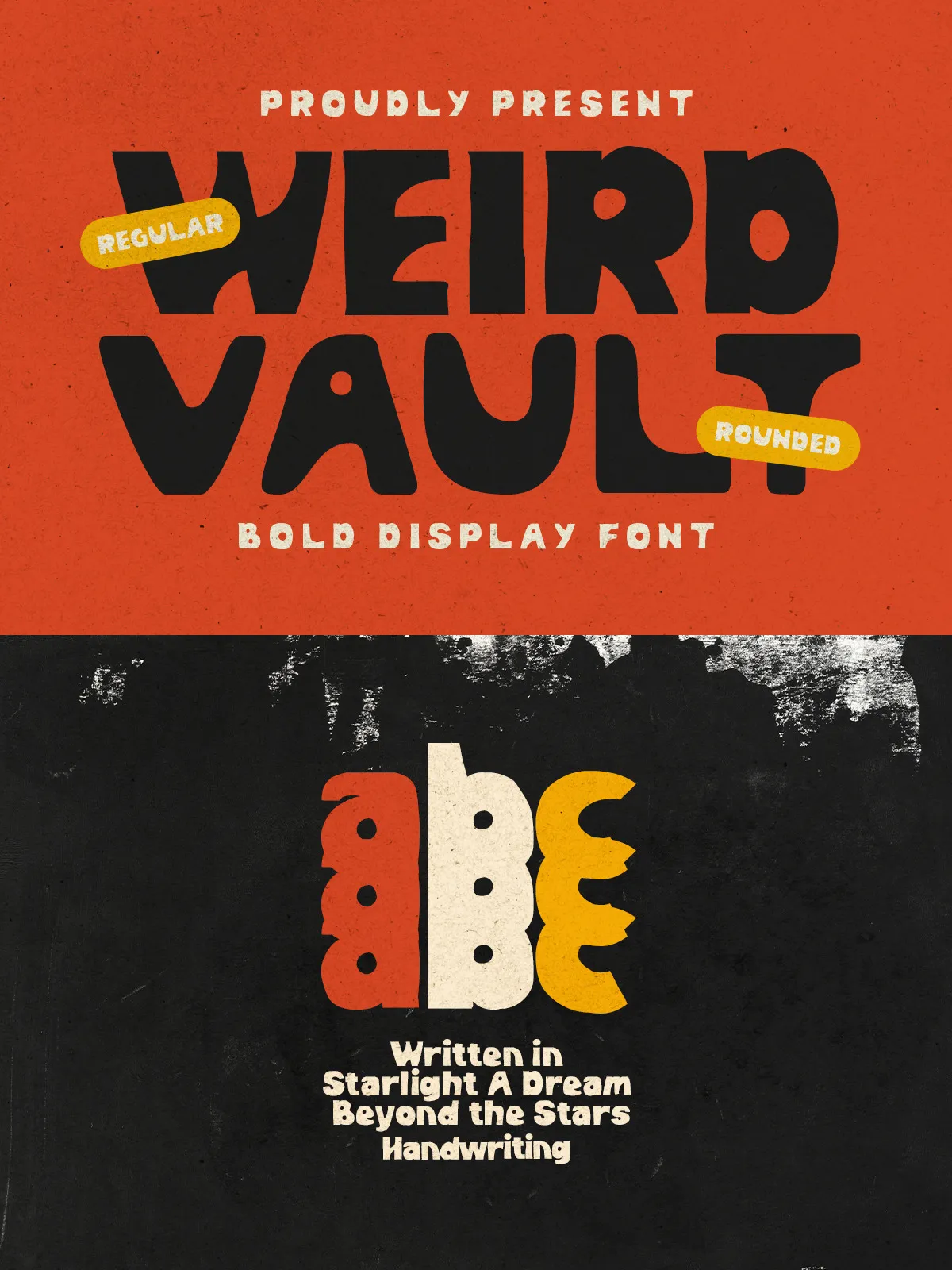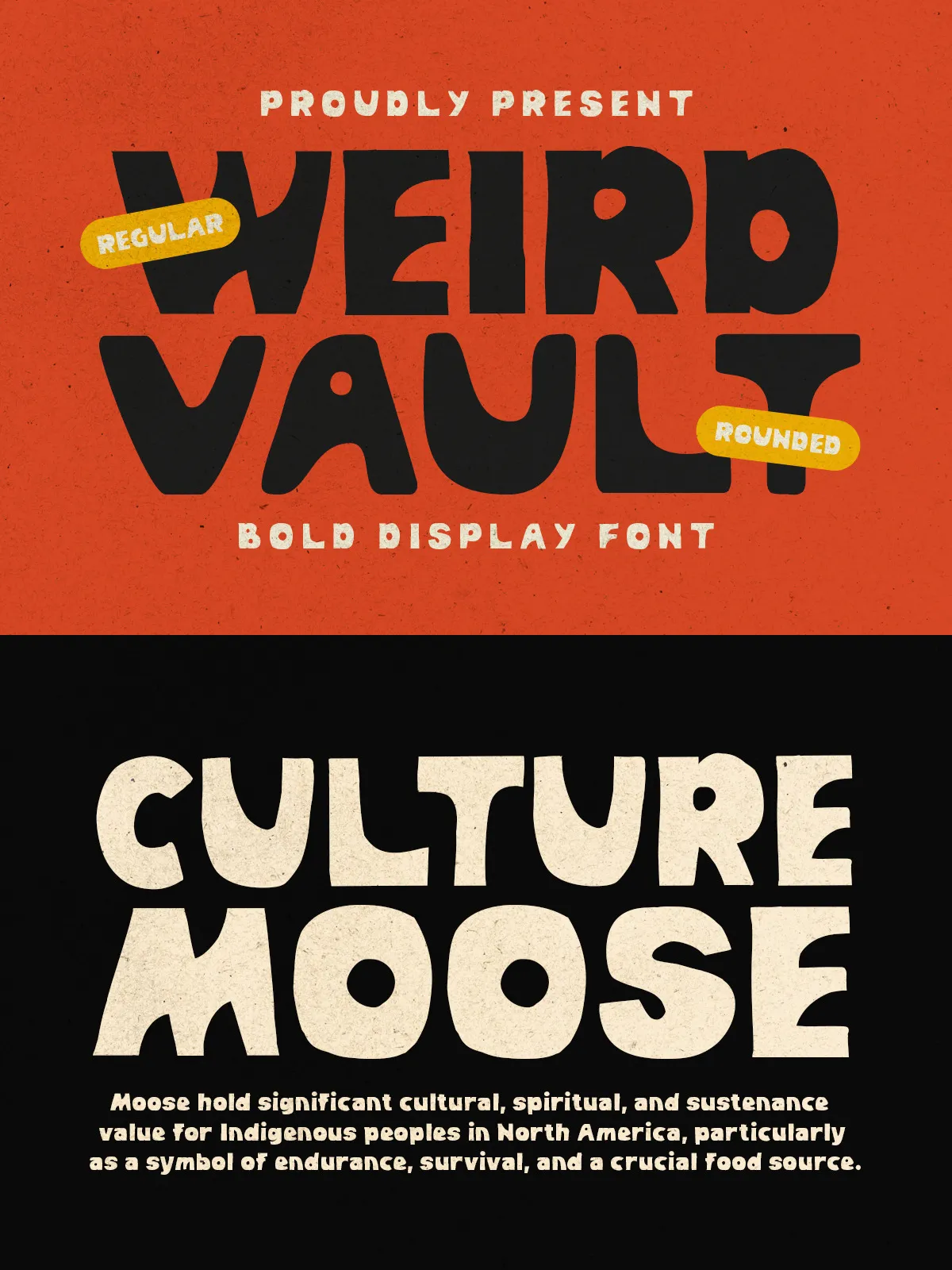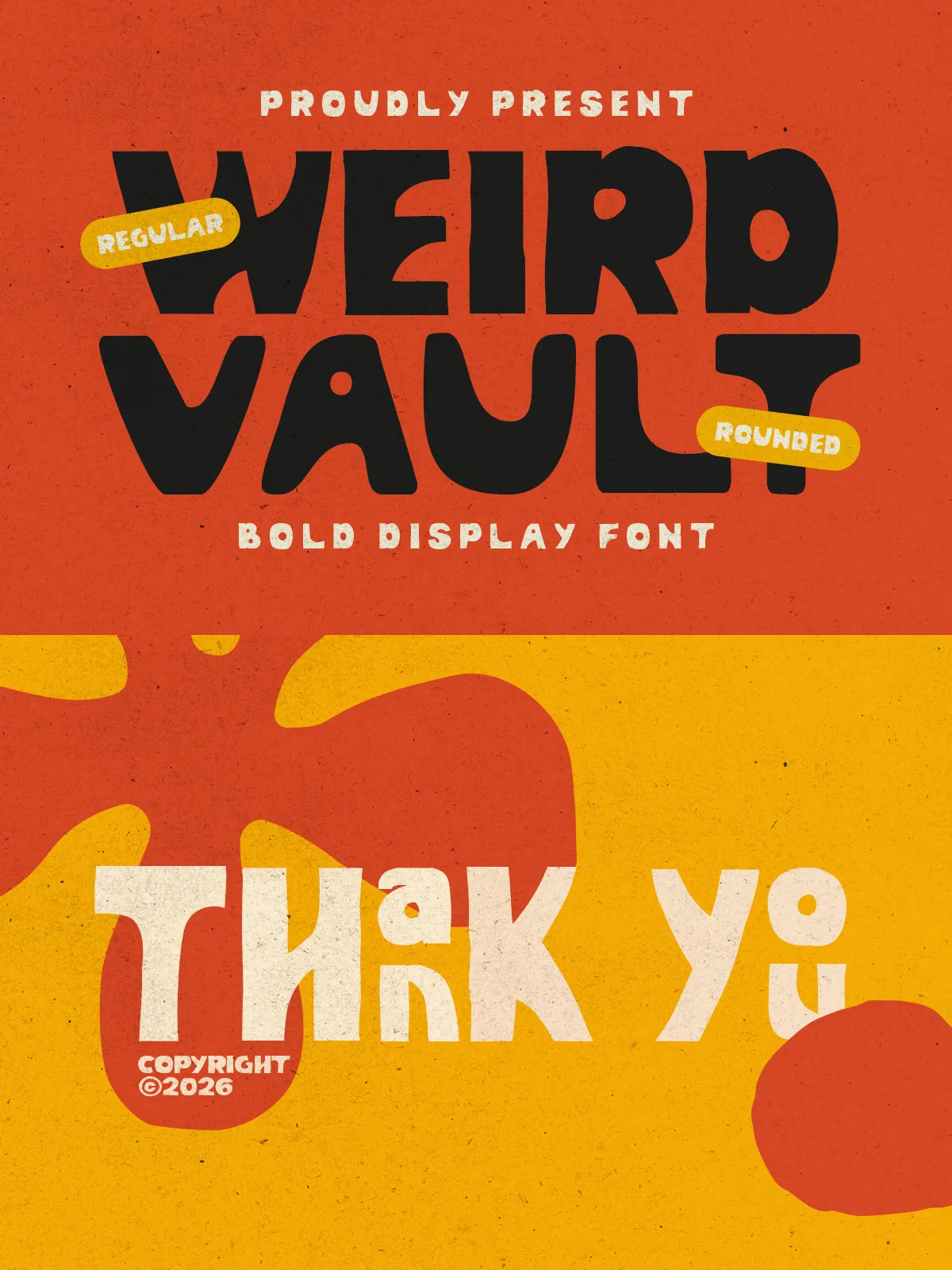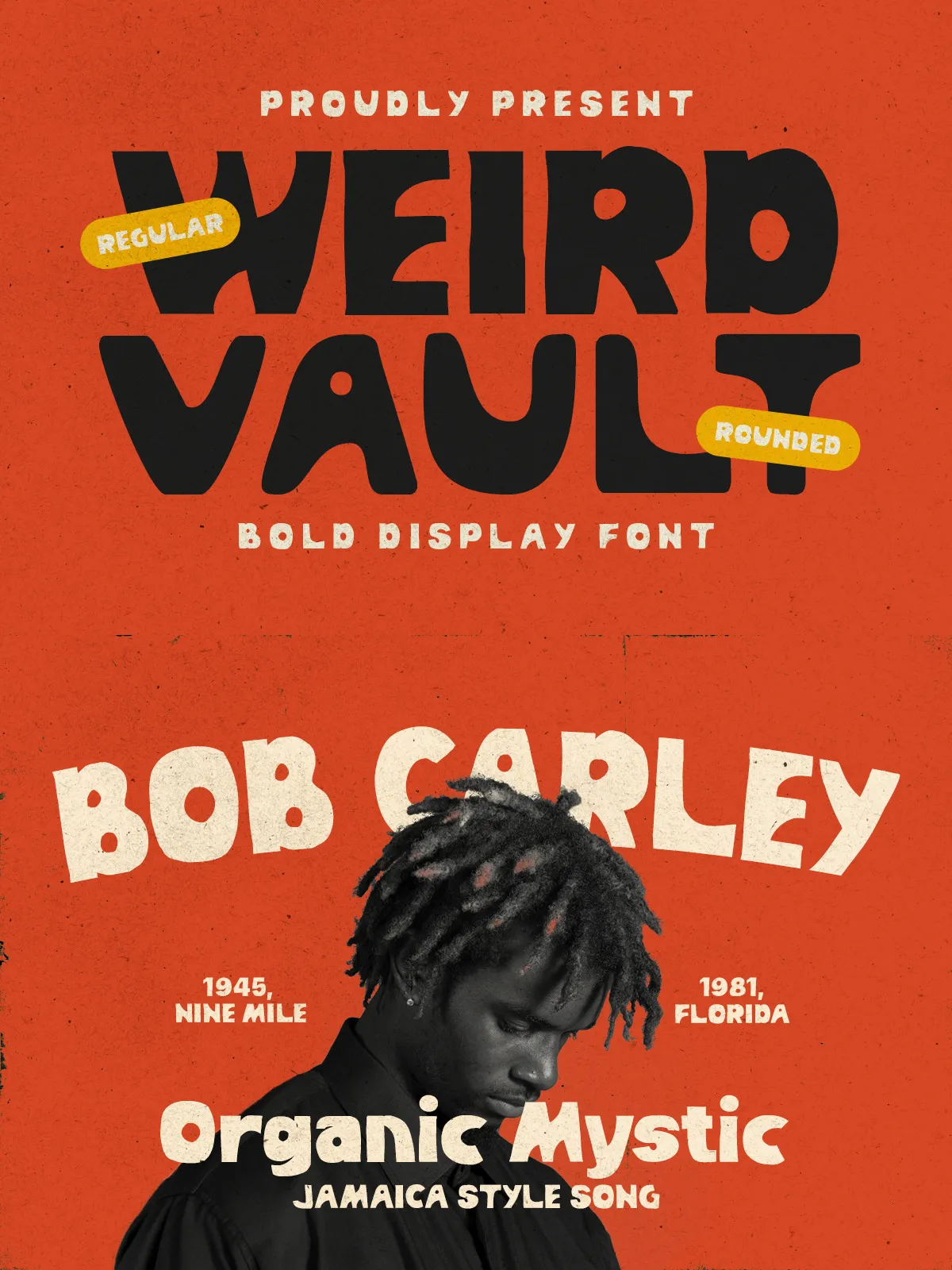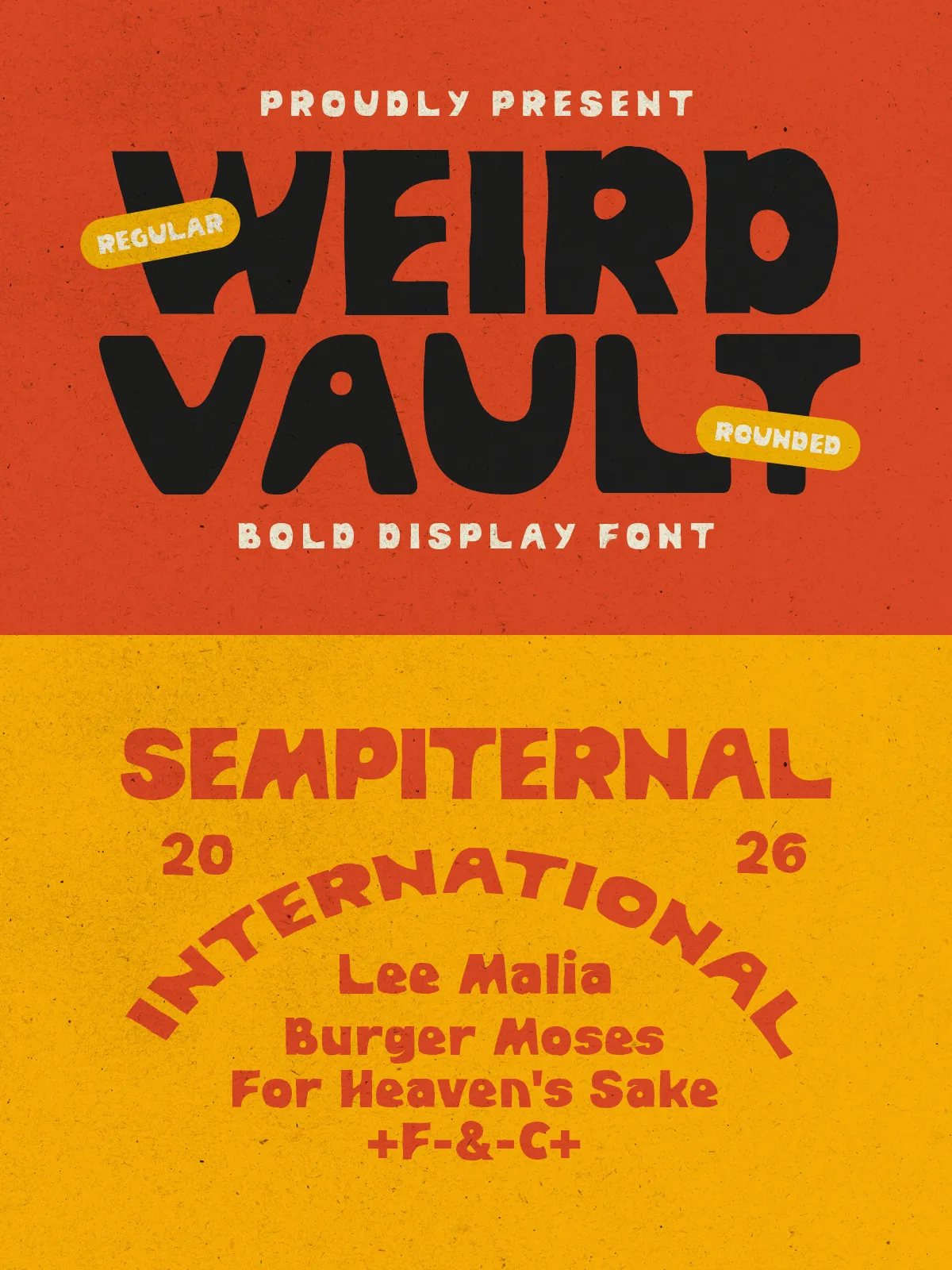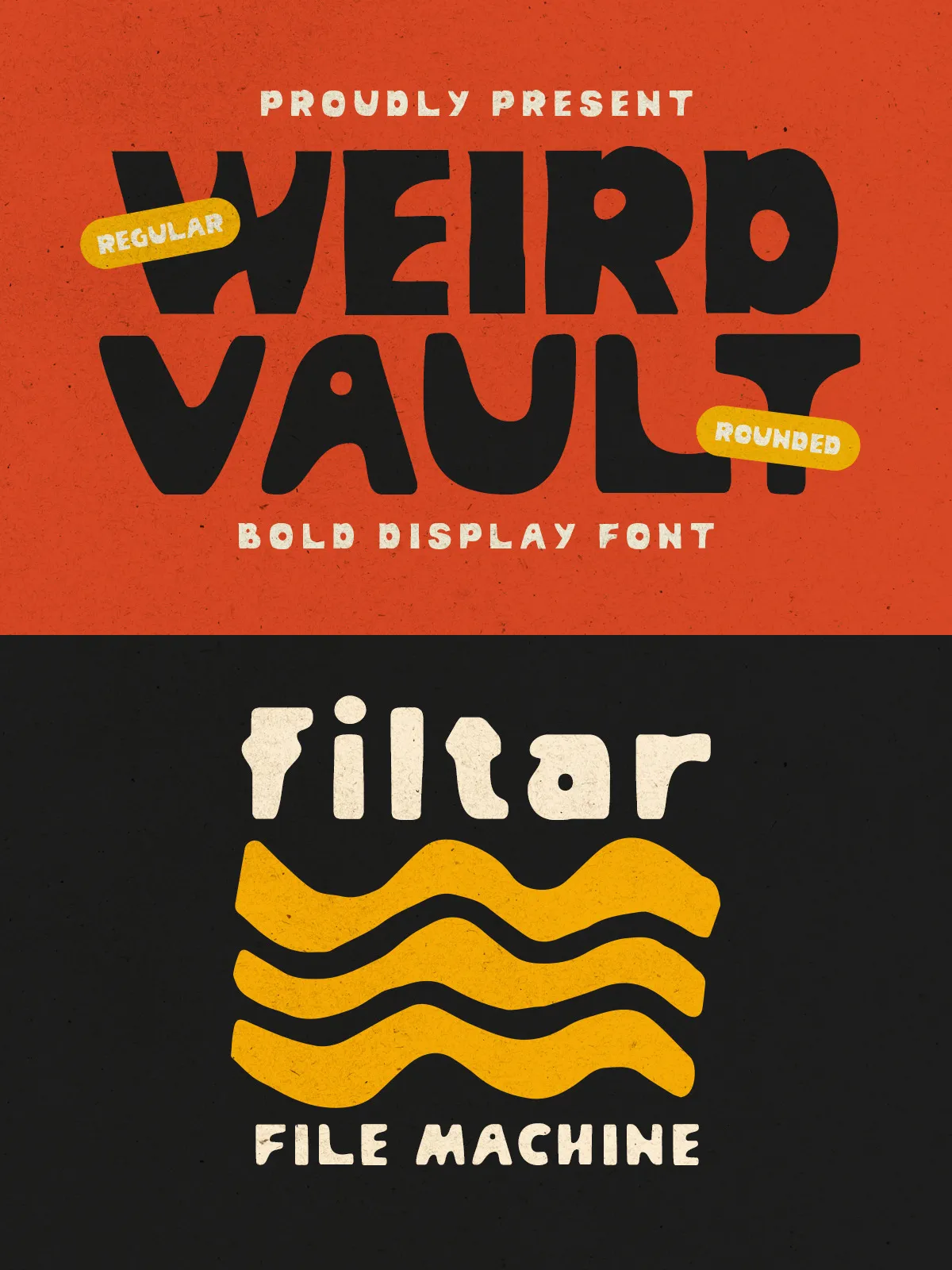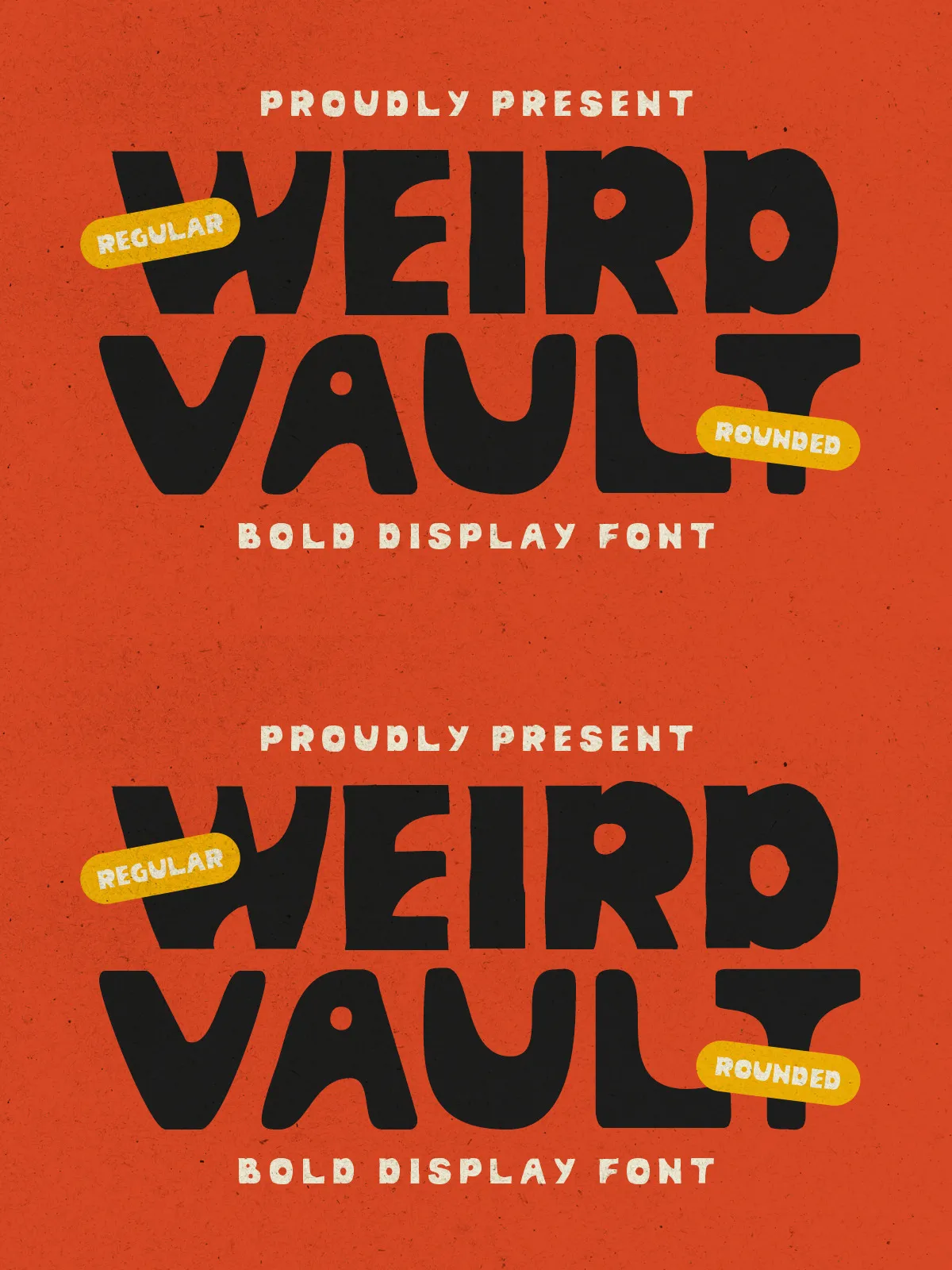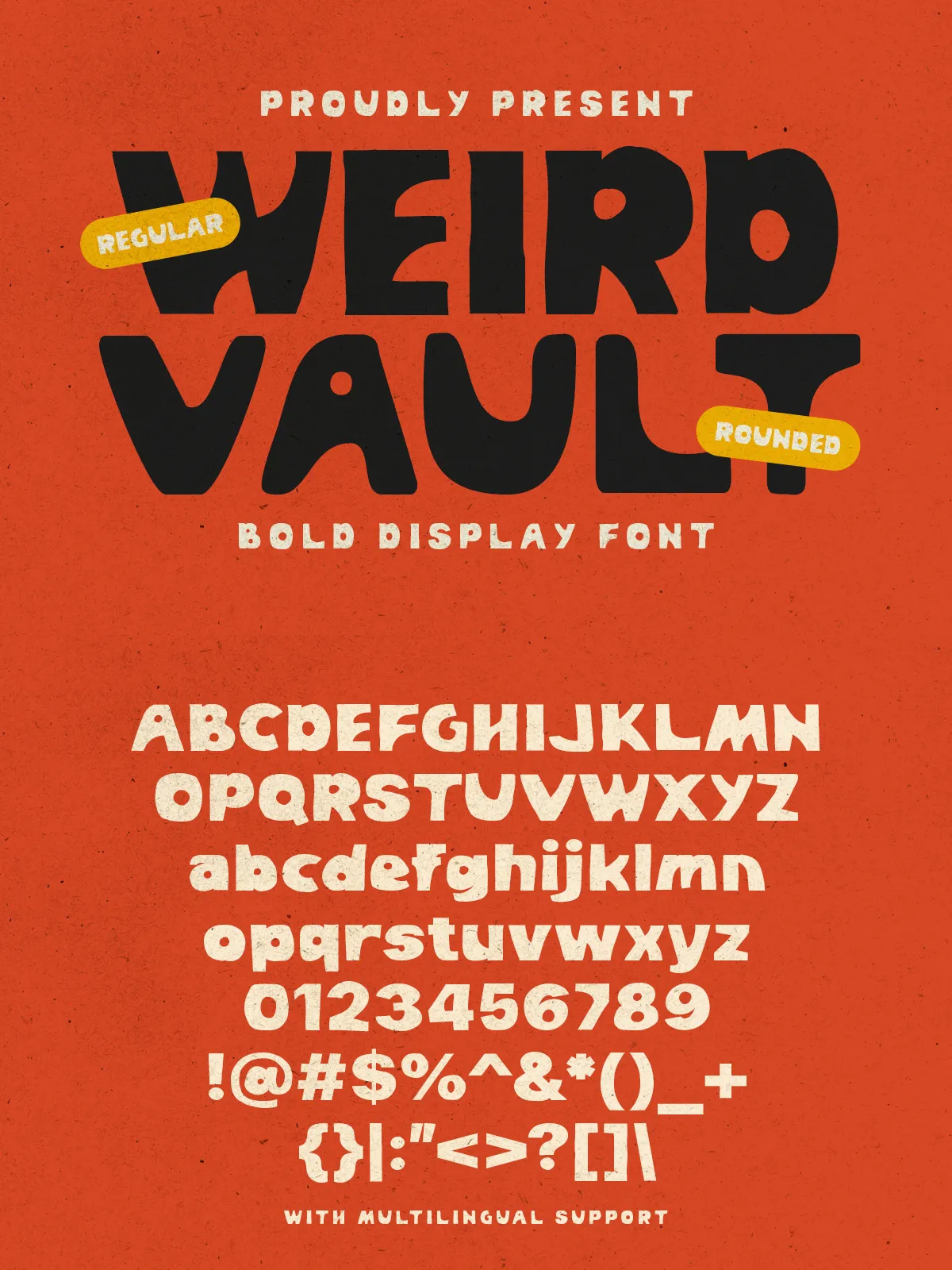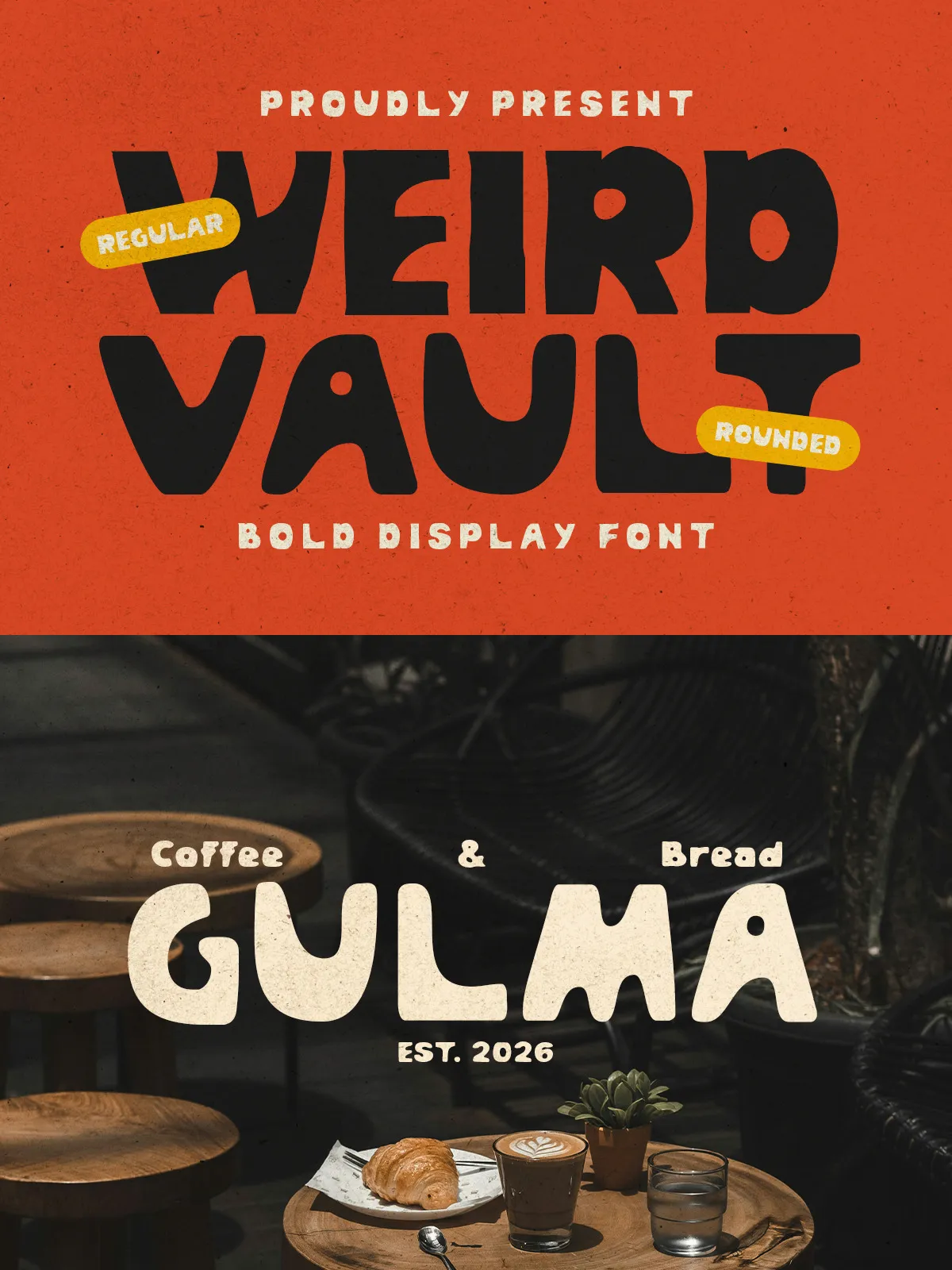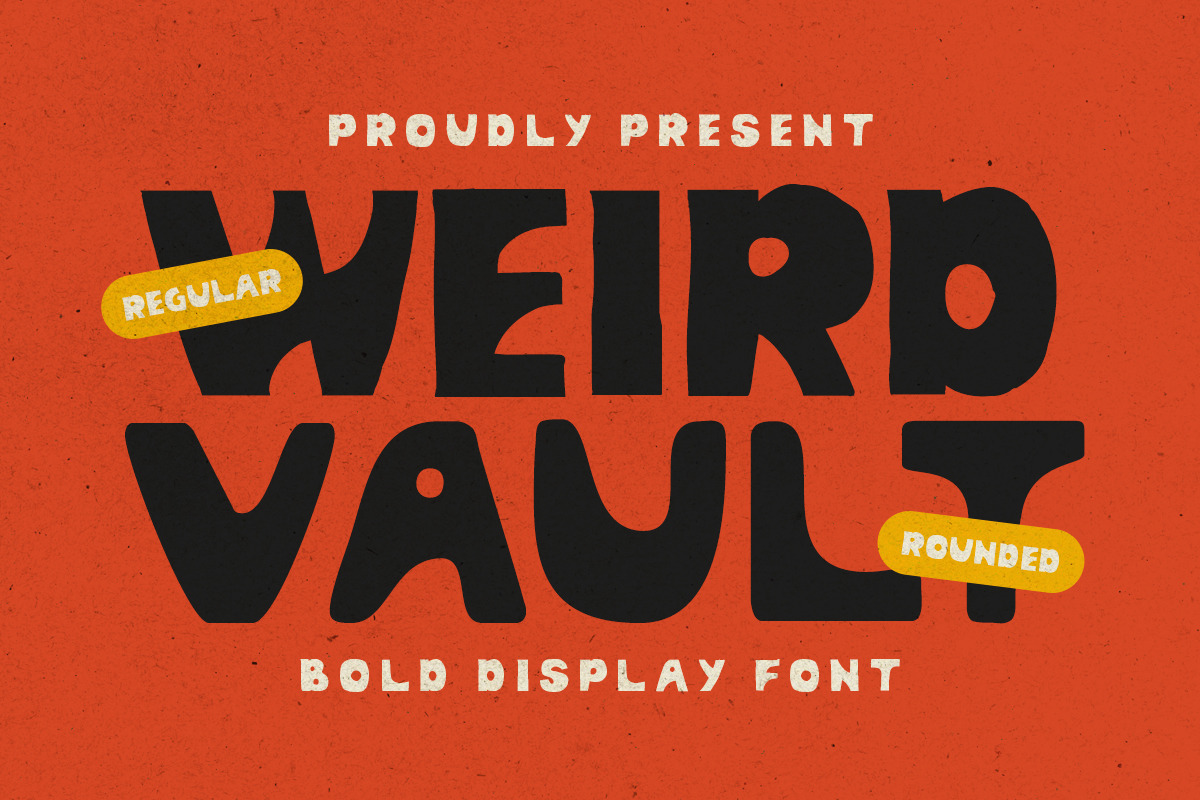
Weird Vault – Display Bold Font
Weird Vault is a roughly handmade display bold font. With regular and rounded style that you can choose to suit your needs. You can use this font for any purposes such as logotype, quotes, branding, poster, and any other project that needs strong yet human made looks. This font also support multi language.